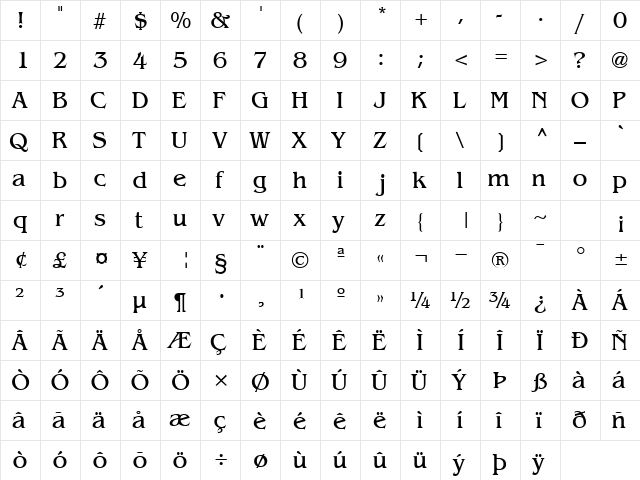
ExpressDecoSSK Regular
Design Context for ExpressDecoSSK Typeface
ExpressDecoSSK takes a measured approach to typography — its balanced proportions and neutral character make it a reliable workhorse for both digital and print work.